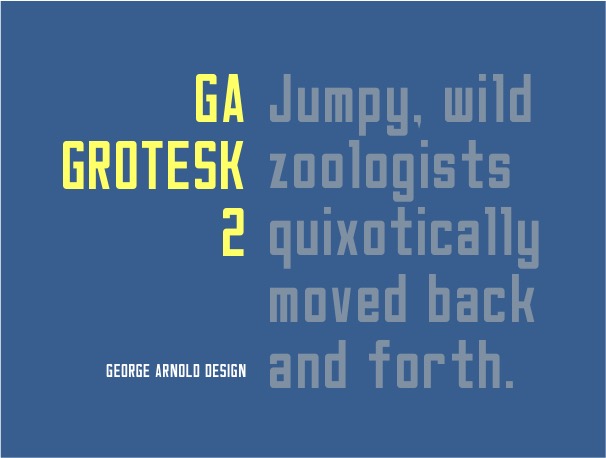
Congratulations! FontStruct Staff have deemed your FontStruction worthy of special mention. “GA Grotesk 2” is now a Top Pick.
Pretty nice font, but I'm not sure about the small copyright symbol and the trademark symbol being inside a circle.
Hey Bryndan, thanks for your comment, I agree with you.  I struggled a bit with these 3 symbols, and didn't really arrive at something that worked.  The circles now seem, thanks to your eye, a bit naf.  Thanks for your help, cheers.
Can you add cyrillic